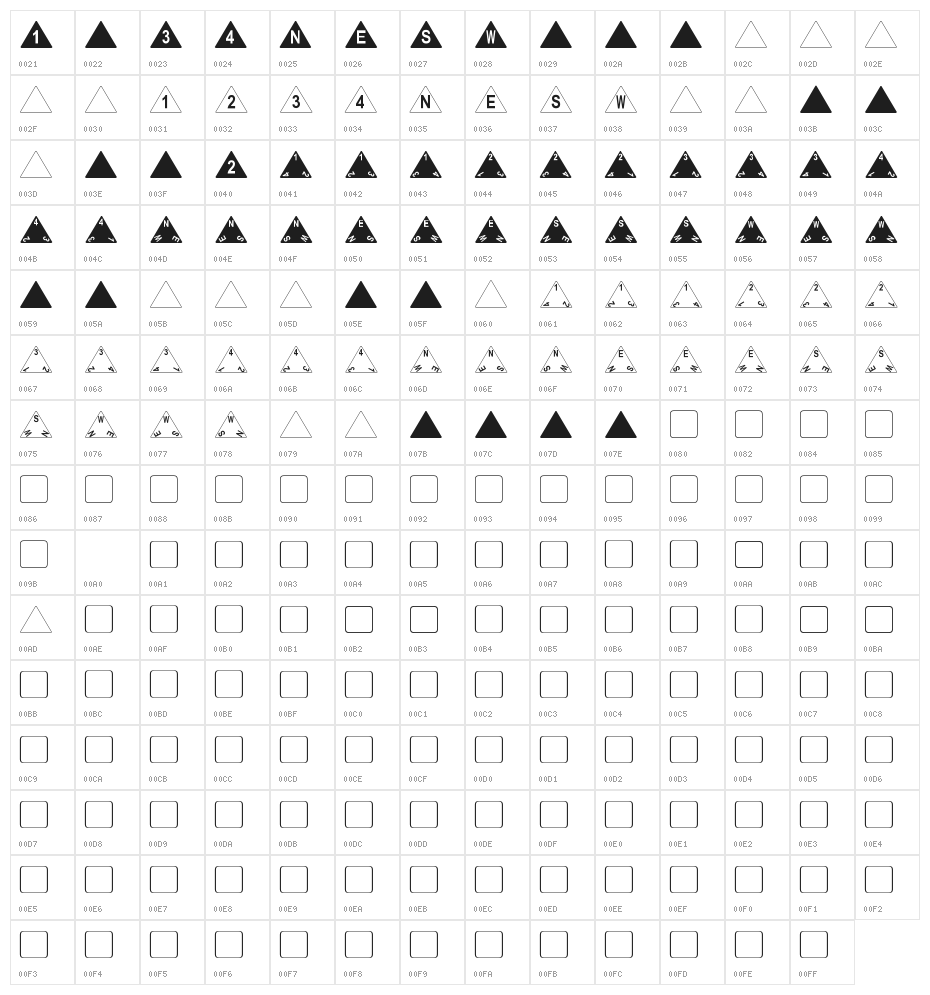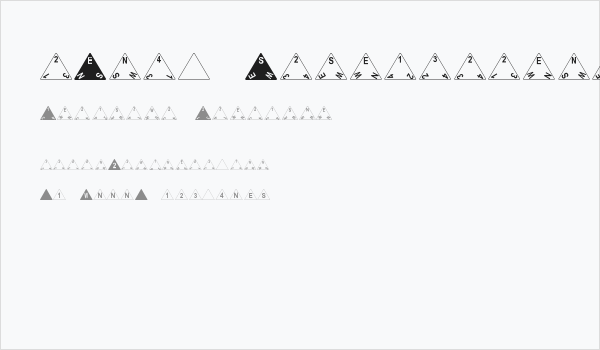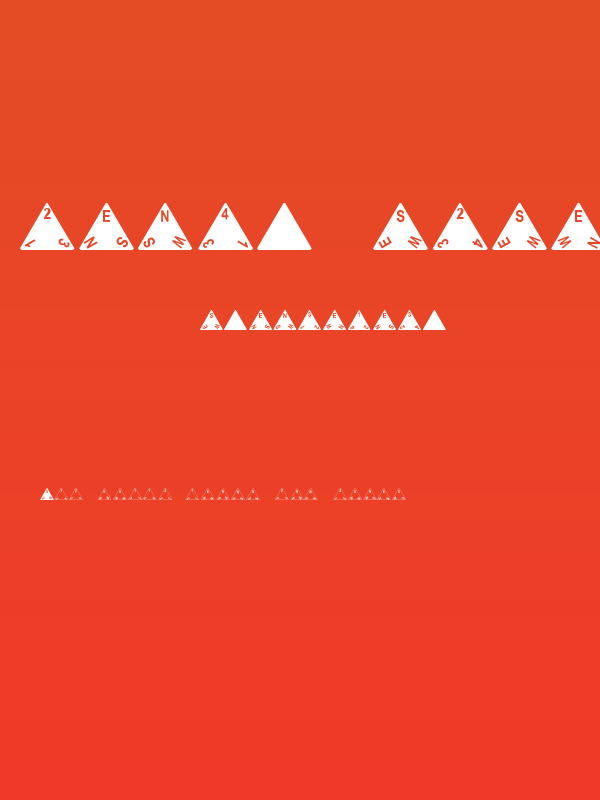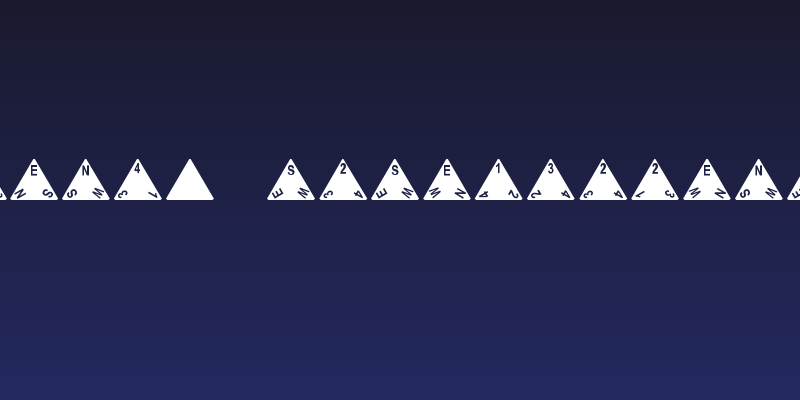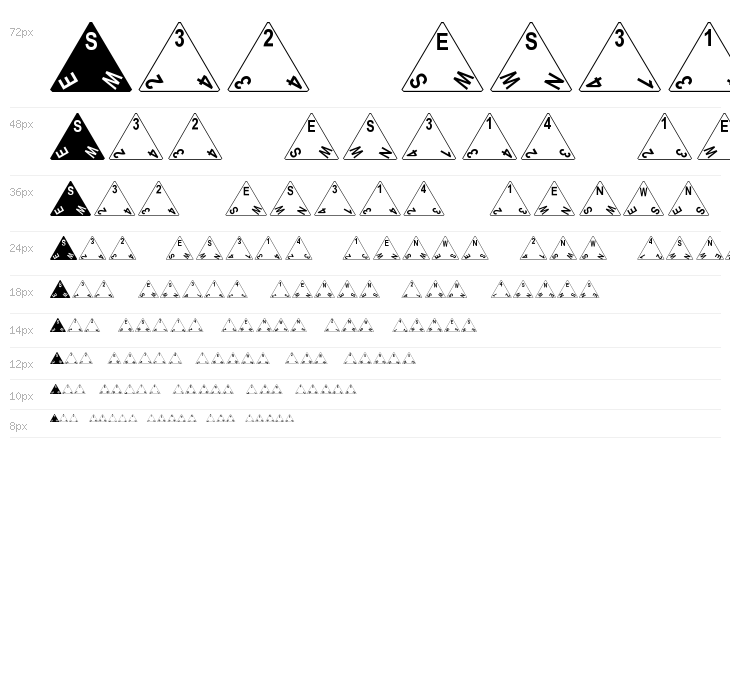
dPoly Tetrahedron Font
dPoly Tetrahedron Description
This design features a series of triangular shapes, each containing numbers or letters. The triangles are arranged in rows, with alternating black and white backgrounds. The characters within the triangles are bold and clear, making them easily readable. The use of directional letters such as N, E, S, and W suggests a navigational theme. The overall design is geometric and structured, with a modern and minimalist aesthetic. The contrast between the black and white triangles adds a dynamic visual interest, while the consistent use of typography within each triangle maintains a cohesive look.